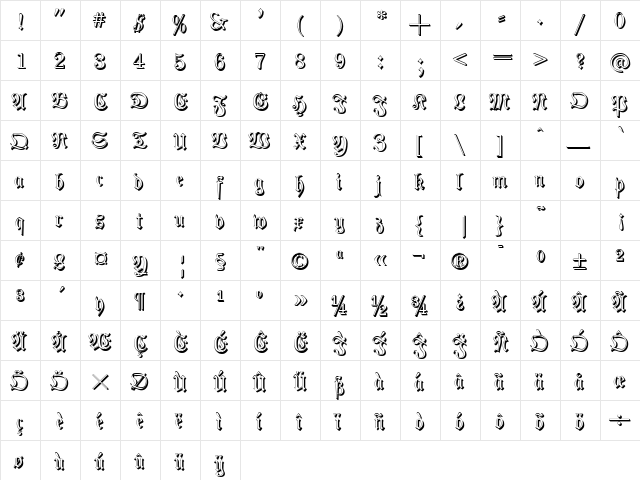
PhraxturedShadowed Regular Font Preview
PhraxturedShadowed Regular
PhraxturedShadowed brings ornamental detail and strong personality to headlines and identities, where visual impact matters more than quiet functionality.
Font Pairing: Pair with a clean neutral sans-serif for body copy to let PhraxturedShadowed's character lead without overwhelming the composition.
Pro Tip: Treat PhraxturedShadowed as the centrepiece of your typographic hierarchy. One strong heading set in a decorative face can carry an entire layout.